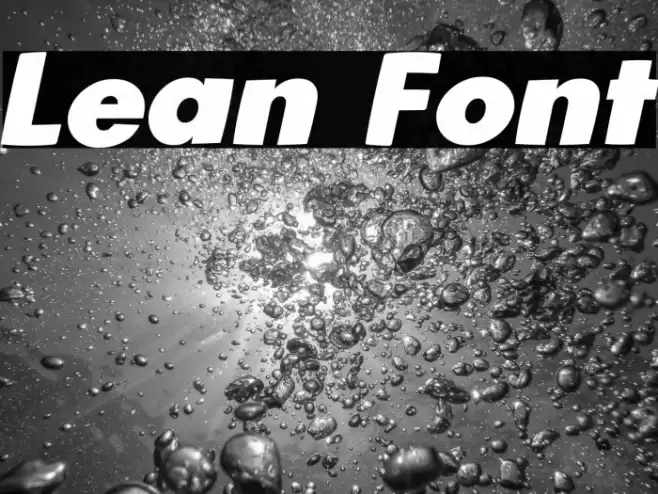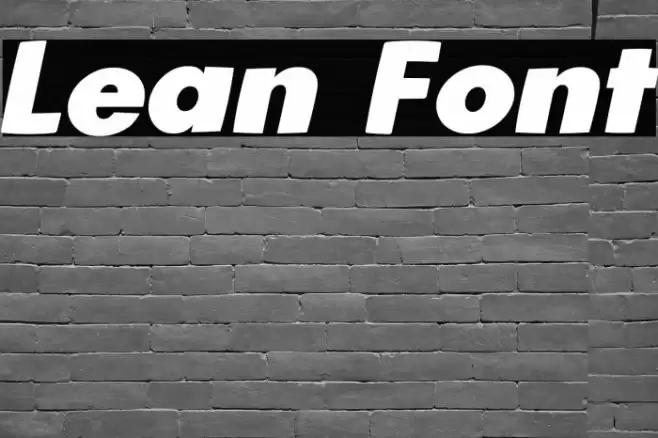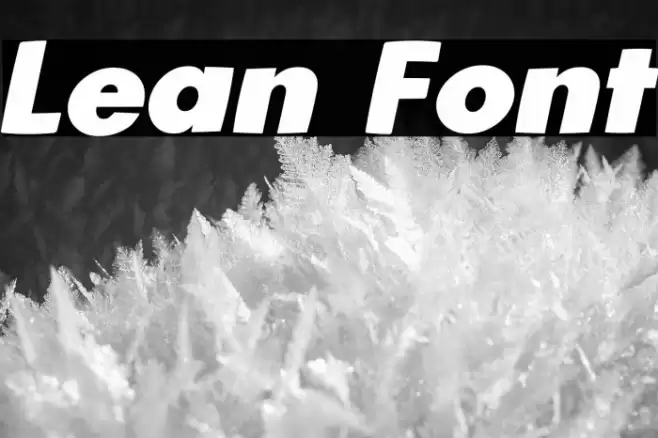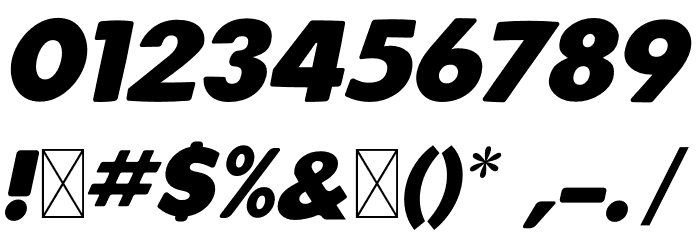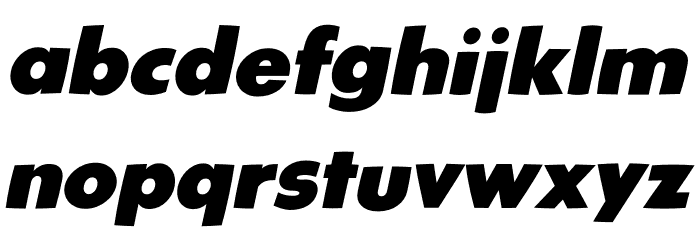
Lean Font
Lean Description
This font exhibits a bold and dynamic style with a pronounced forward slant, giving it a sense of motion and energy. The characters are thick and robust, with a consistent stroke width that emphasizes strength and presence. The uppercase and lowercase letters maintain a uniformity in style, with rounded edges that soften the overall impact. The numerals are equally bold, ensuring visibility and readability. Special characters are designed to match the assertive style, making them stand out effectively. This font is well-suited for applications where a strong, impactful statement is desired.
A bold, italicized font with a dynamic and energetic style from Comic fonts.
- Proposed Projects: Ideal for sports branding, dynamic advertisements, and bold headlines.